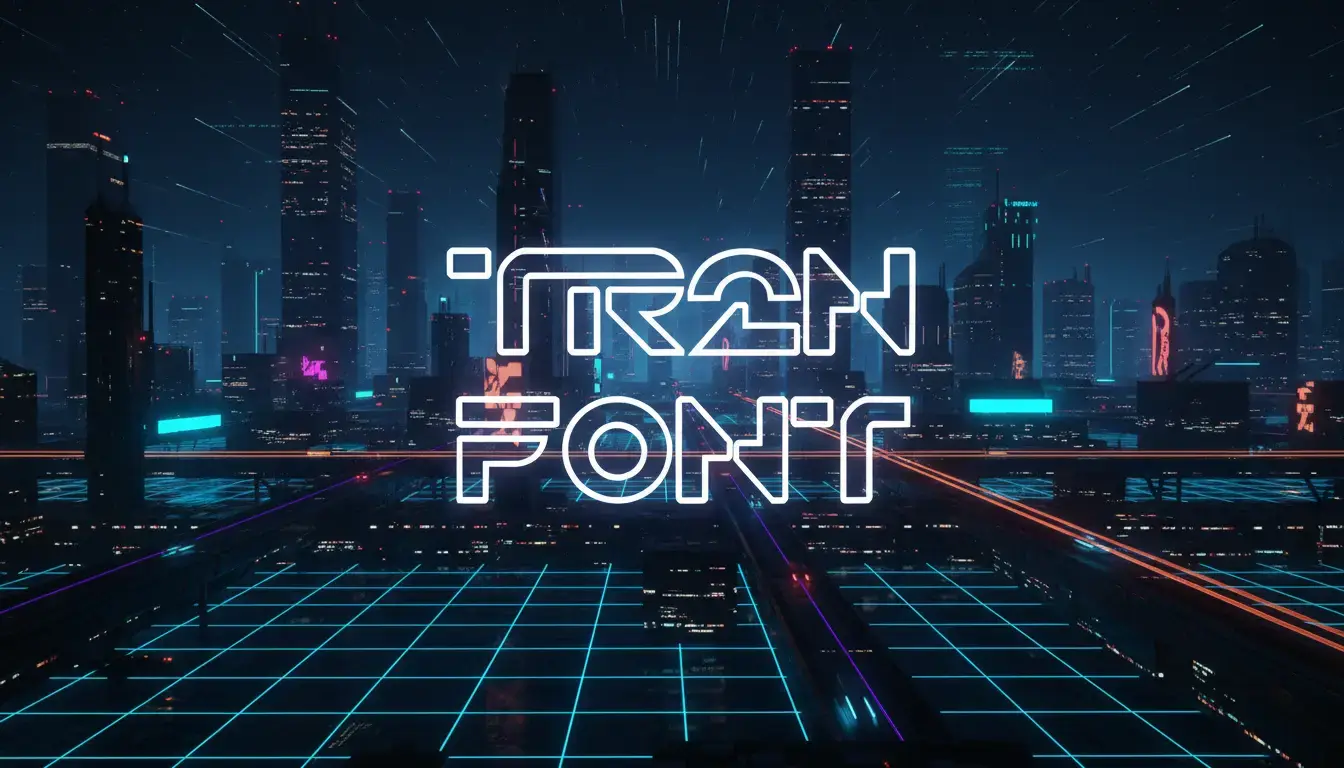
TR2N Font
TR2N
TR2N is a techno font made by Jeff Bell. Squared-off, geometric letters give it a digital, high-tech feel. It's a free download, and you can try it with your own text in the preview above first.
What You Can Type With TR2N
TR2N covers the full alphabet in upper and lowercase, plus all ten numbers, so you can set names, dates and prices without switching fonts. Common punctuation such as !, $ and % is included as well. It has 1 accented letters, but not the full set for Spanish or French, so test any non-English words first.
Where TR2N Works Best
Designers usually reach for fonts like TR2N when they're making gaming logos, tech branding and futuristic posters. Try it on a dark background with a bright accent color for a sharp, modern look.
What fonts pair well with TR2N?
A simple sans serif like Roboto keeps longer text easy to read next to it.